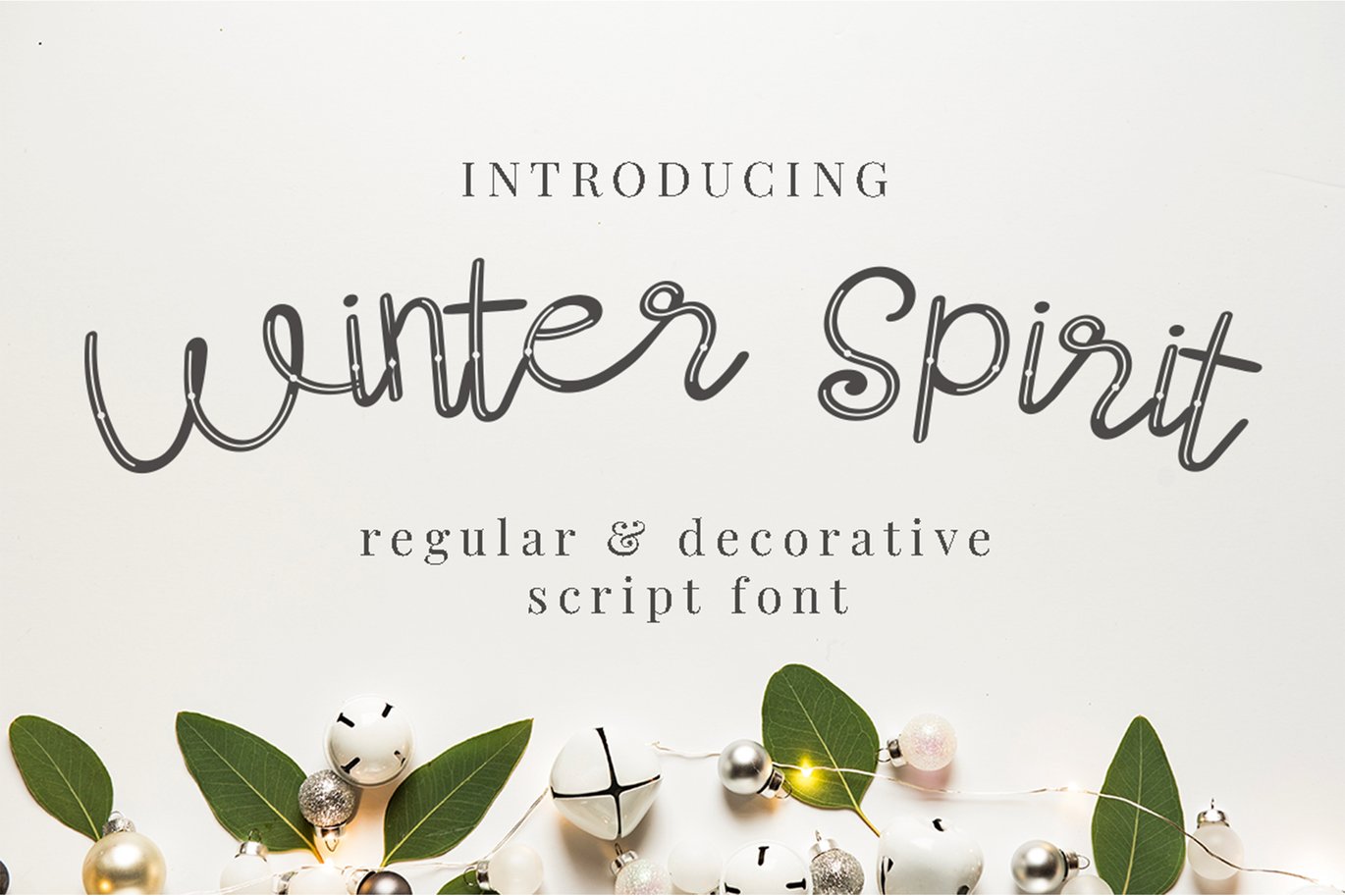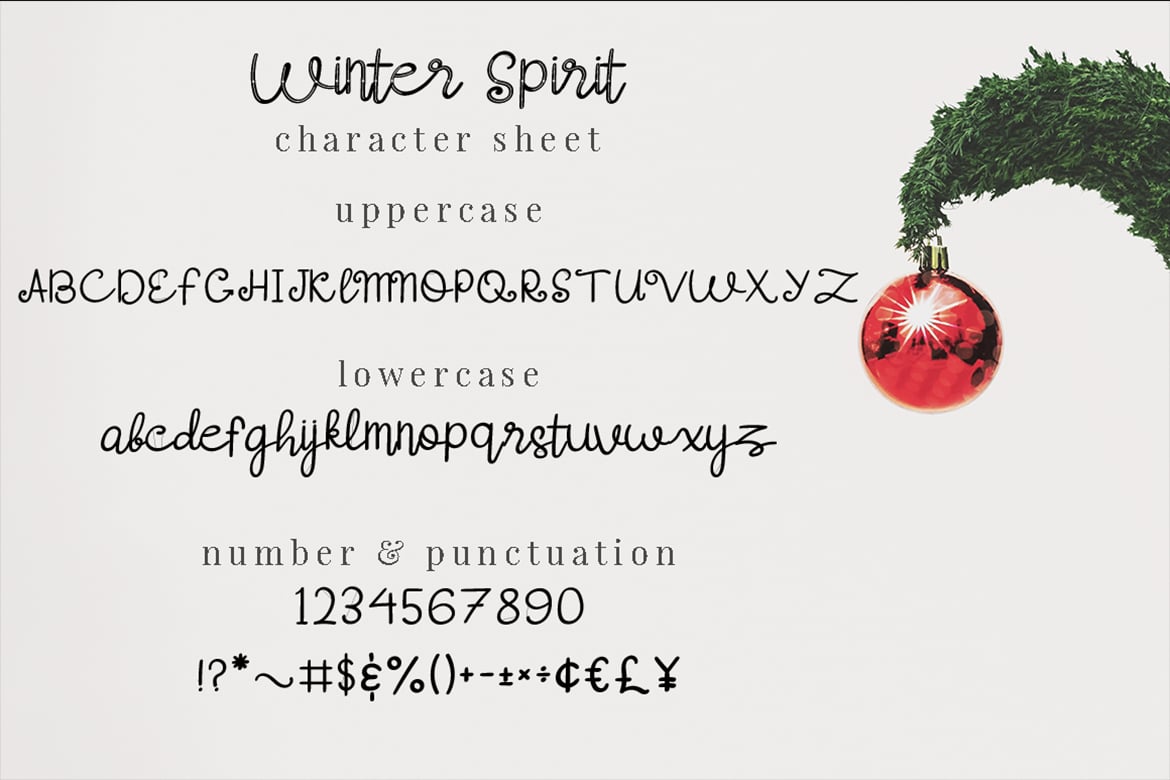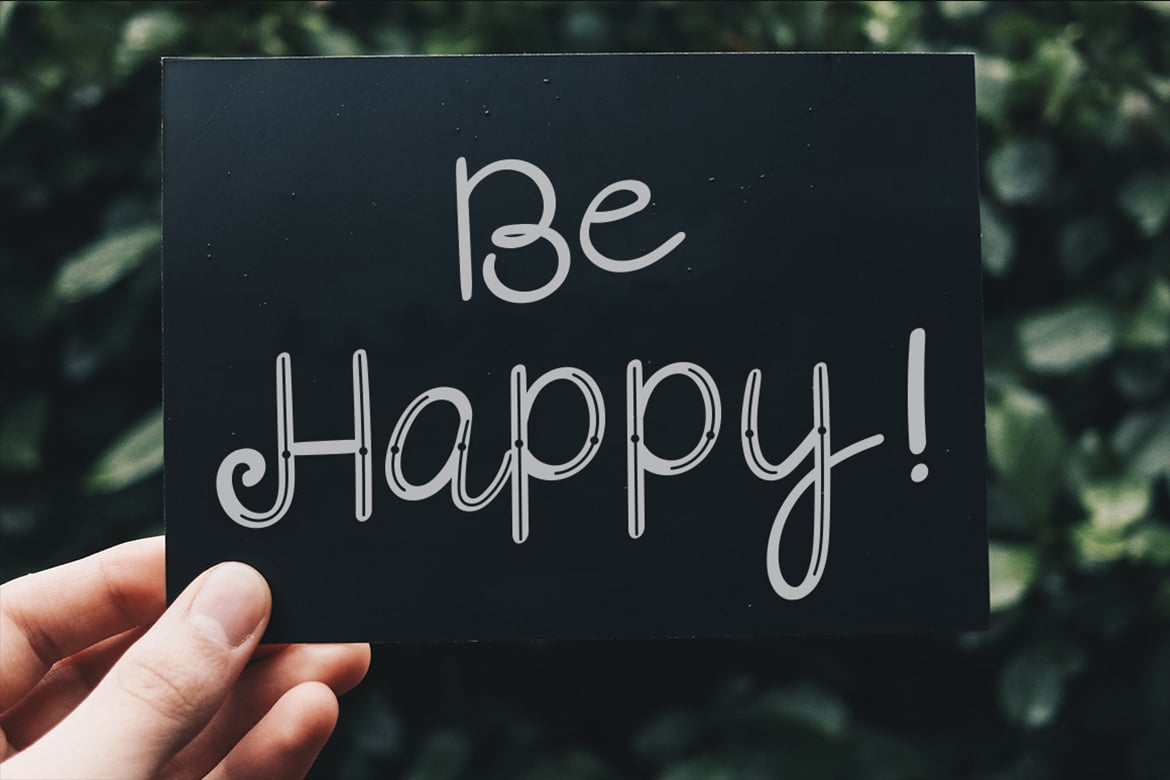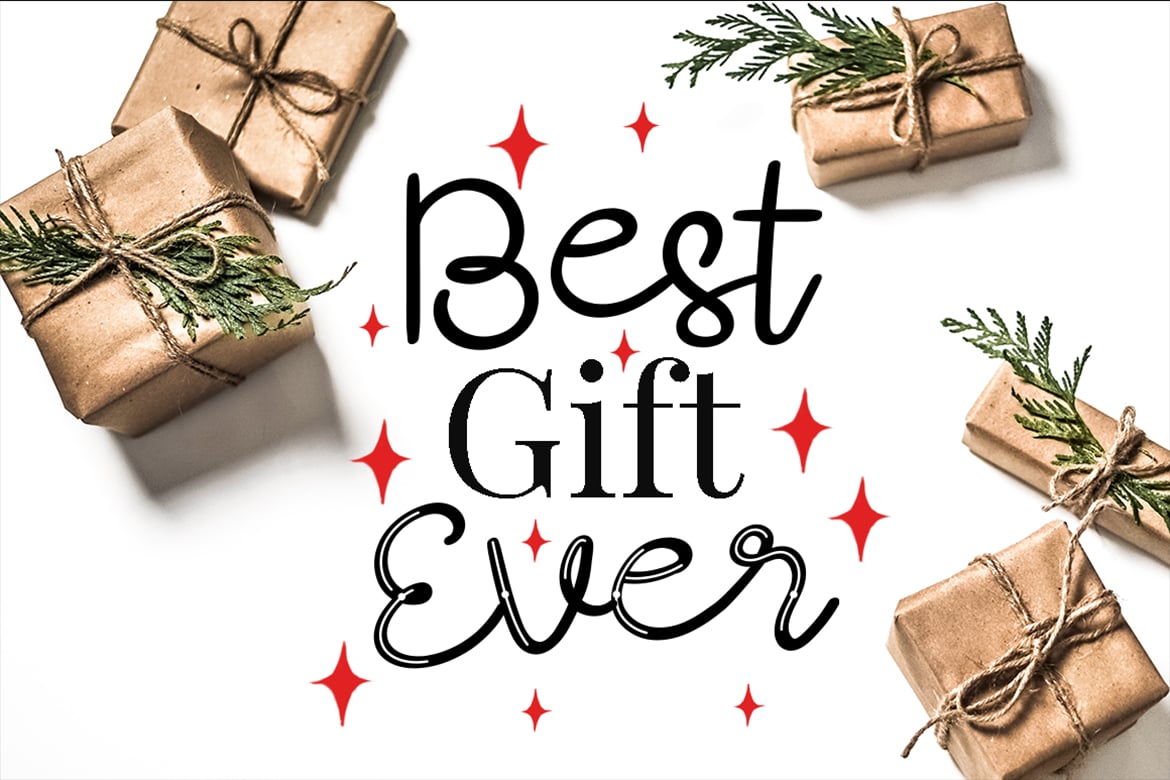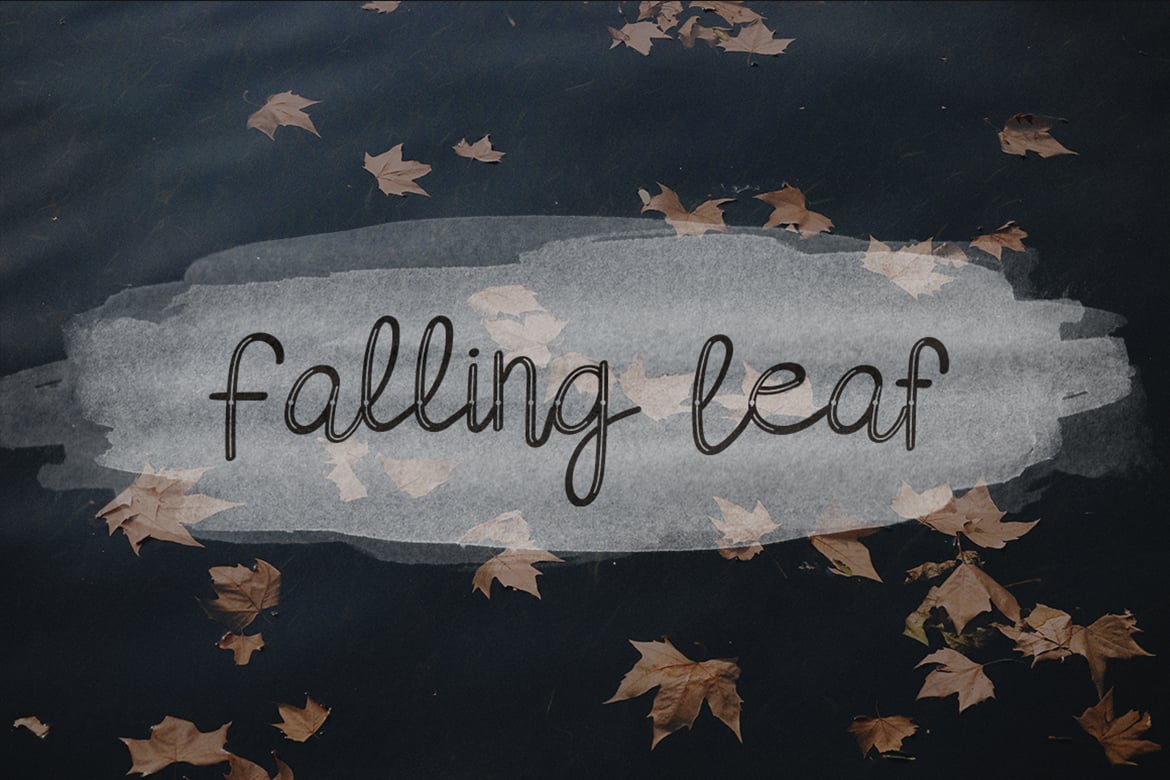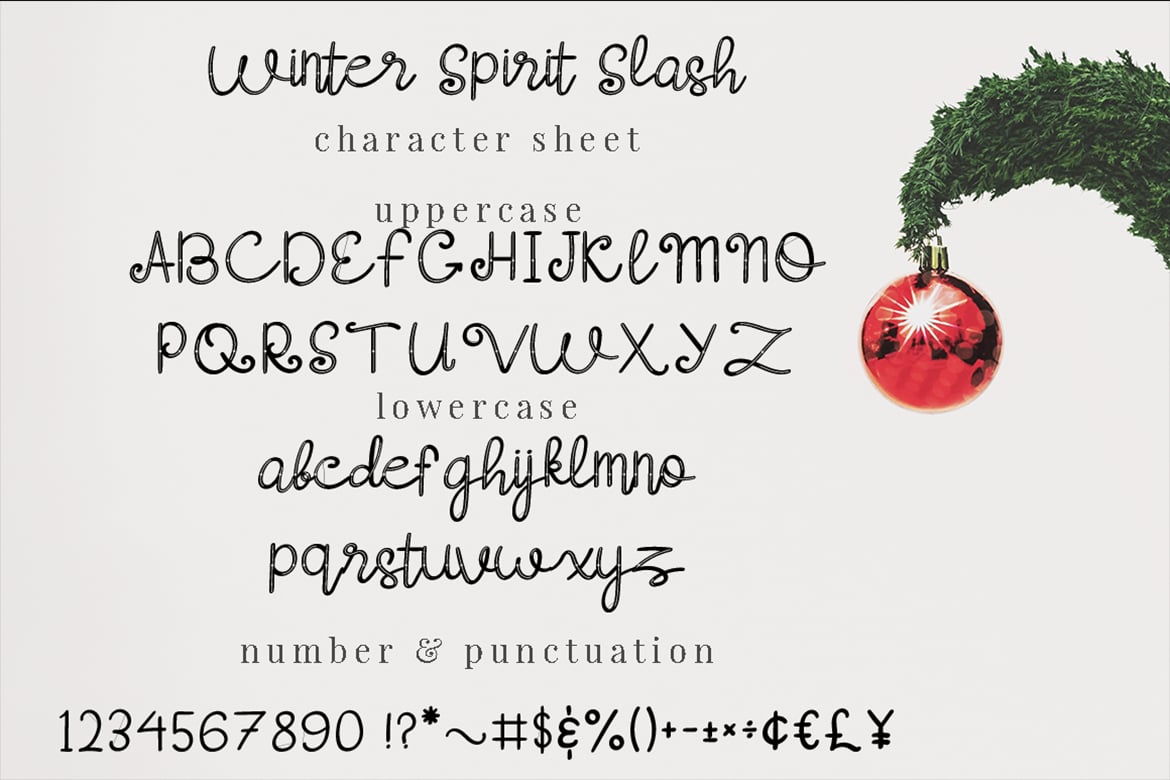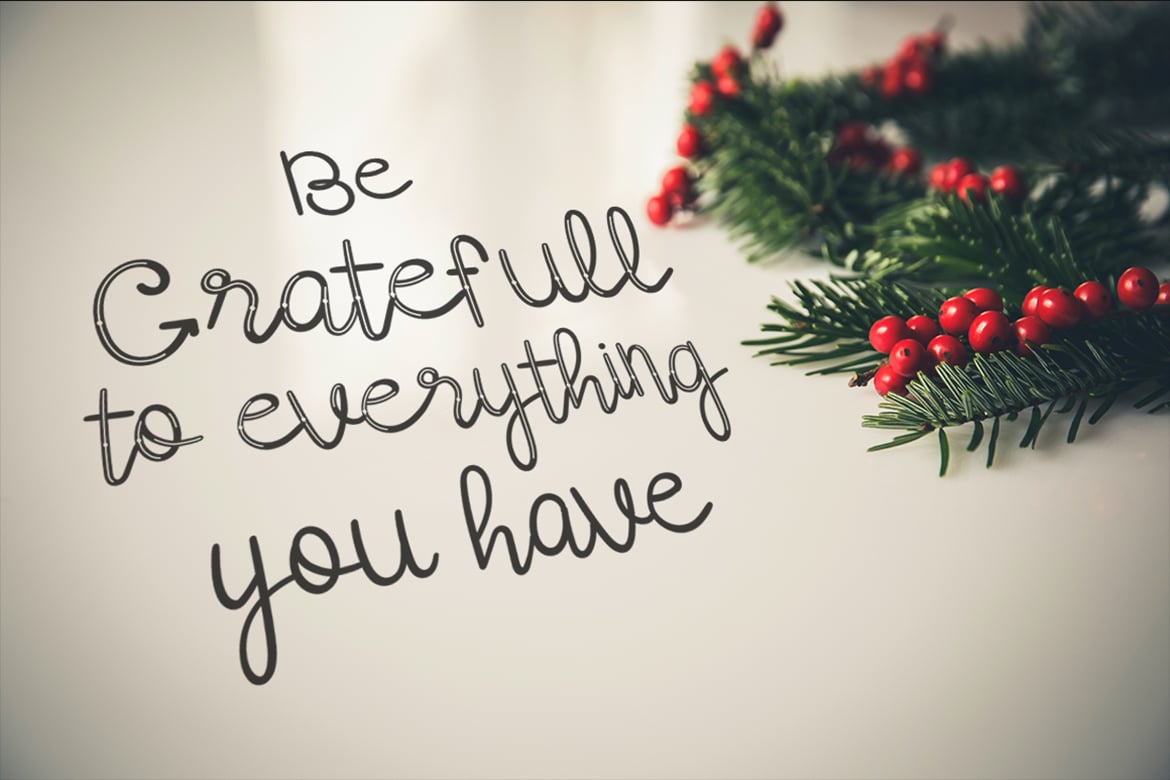
Winter Spirit – Script Font
Let me introduce the Winter Spirit font – a cute script with two style regular and slash, that is perfect for wonderful wintertime newsletters, handmade cards, scrapbook page titles, postcards, personalized stationery and more!